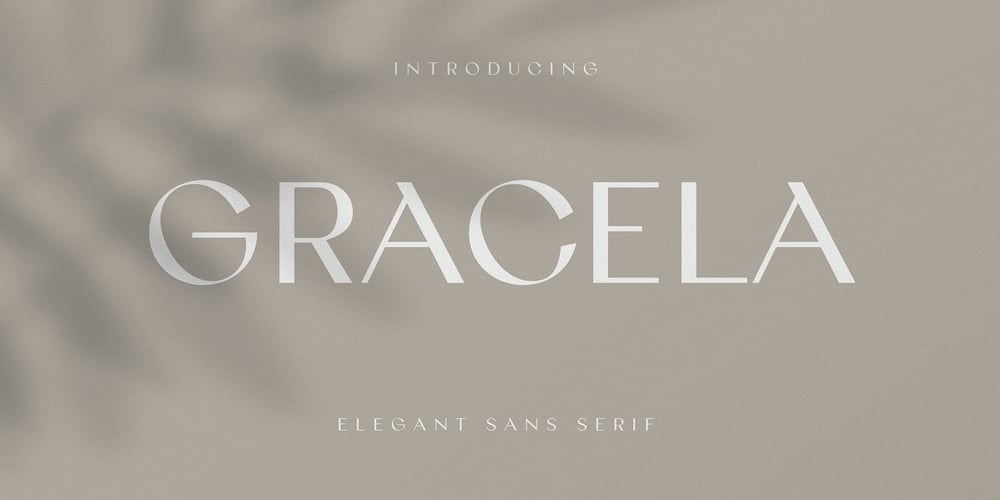
Gracela Font Family was designed by abdul artega and published by Yukita Creative. Gracela contains 1 styles and family package options. Introducing the Gracella font in the Elegant Sans Serif style. A versatile font that can be used for both formal and casual.Gracela is a regular style font, not too thin nor too thick, and very suitable for the needs of logos, branding, websites,Features.- Supports all languages in the world (37)- Versatile Single Font.- One font for all needs.Make sure you test out the fonts using one of our examples before making any purchases to know what you’re getting yourself into. Thank you for taking care when choosing fonts!